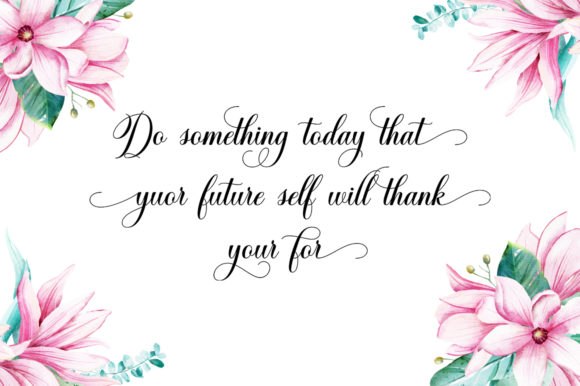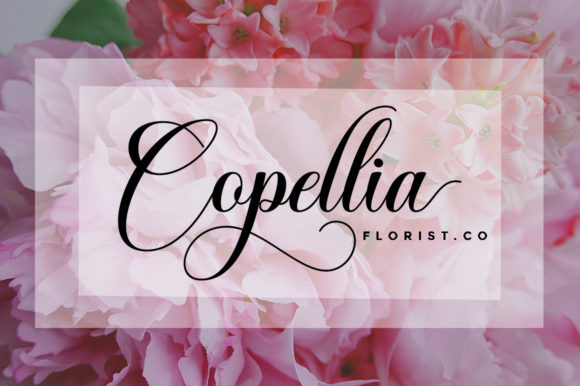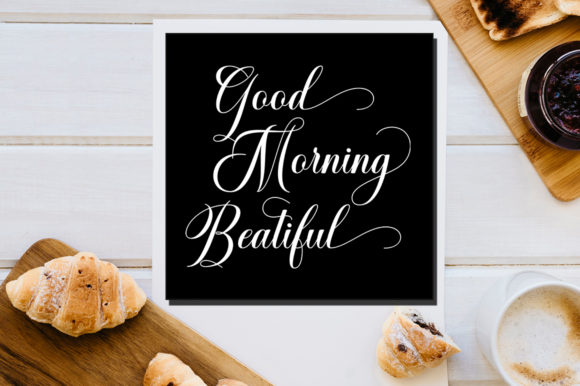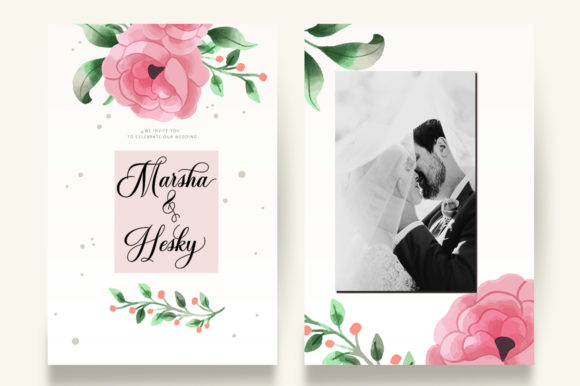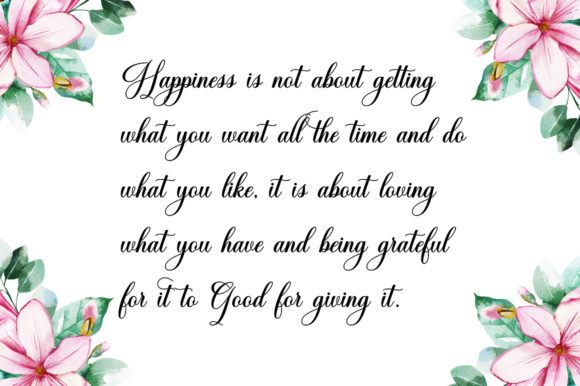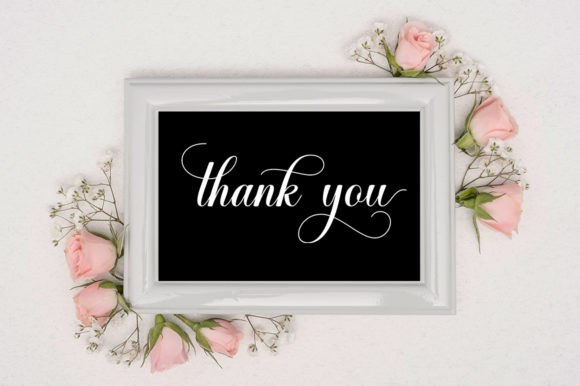
Hello Crystal Font
About Hello Crystal Font
Hello Crystal is a gorgeous handwritten font with an incredibly friendly feel. It features gorgeous swashes and ligatures that make this script incredibly versatile. Whether you’re looking for fonts for Instagram or calligraphy scripts for DIY projects, Hello Crystal will turn any creative idea into a true piece of art!